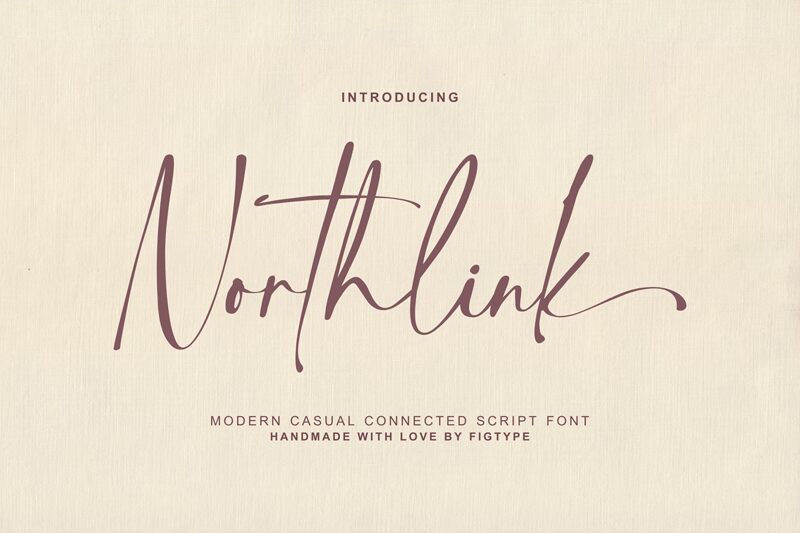
Northlink is an exceptionally stylish script font designed and shared by Figstype. Its elegant flowing letters, with their strong ink-style texture, are ideal for creating sophisticated logos, branding tools and social media designs. If you are looking for a stylish way to add a distinctive touch to your projects then try using this font for your magazine titles or book covers and use it for handwritten cards, brochures or greeting cards.
Northlink is a stunning script font that exudes elegance and versatility.
Northlink